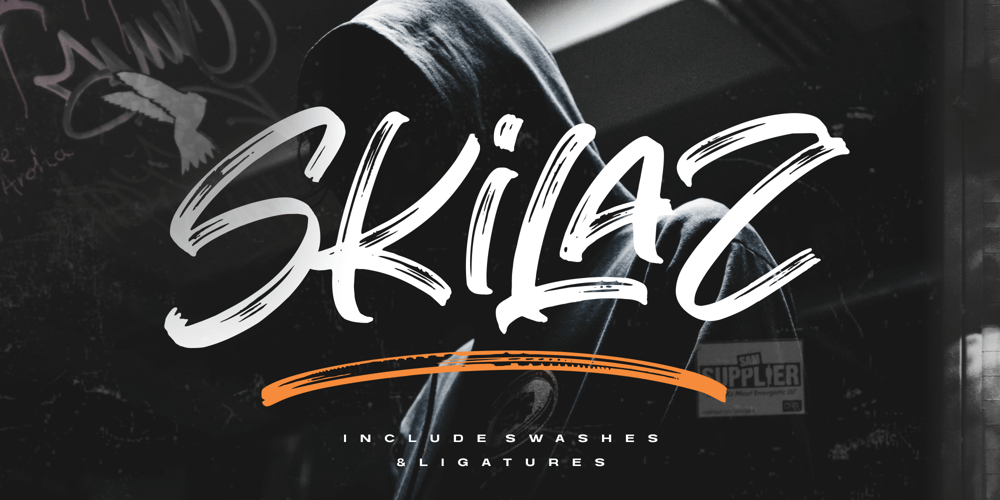
Skilaz Font Family was designed by Bagus Arya Kirana and published by Krntype Studio. Skilaz contains 1 styles and family package options. Skilaz is a modern and charming handbrushed font which has a detailed brush that makes a natural impression.Skilaz also come with underline swash (You can access it by typing 1-9). Skilaz can be placed in many design needs such as, merch, branding, packaging, social media, events, and many more.